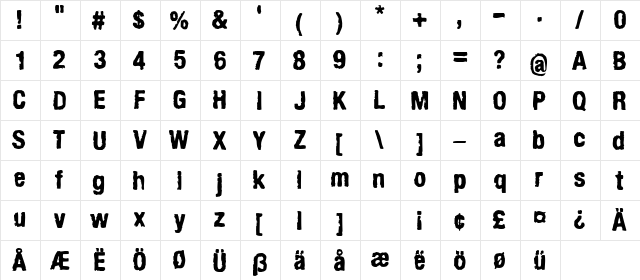
ArmyChalk Regular
Design Context for ArmyChalk Typeface
ArmyChalk has the no-nonsense character of military stencilling and tactical signage, projecting authority and directness.
A strong choice for security brands, outdoor gear, and high-stakes visual communication.
Pro Tip: Try ArmyChalk in all-caps for the most authentic military signage feel. It pairs well with stark, minimal layouts and muted colour palettes.